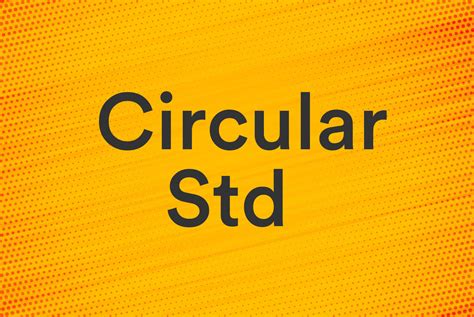
Circular Std Font. You should utilize it for web sites, prints, and so forth. It’s a humanist sans serif font created by lineto with geometric and organic forms.
It’s a humanist sans serif font created by lineto with geometric and organic forms. Web circular std font. You should utilize it for web sites, prints, and so forth.
You should utilize it for web sites, prints, and so forth. It’s a humanist sans serif font created by lineto with geometric and organic forms. Web circular std font.